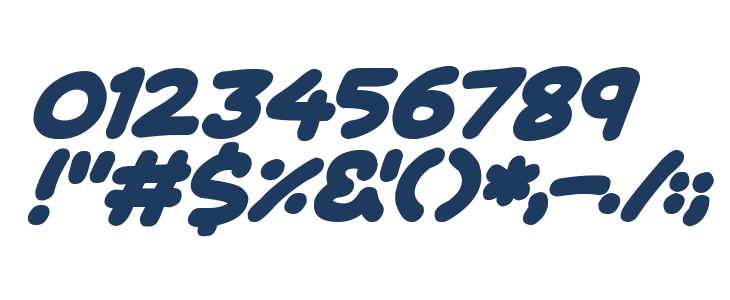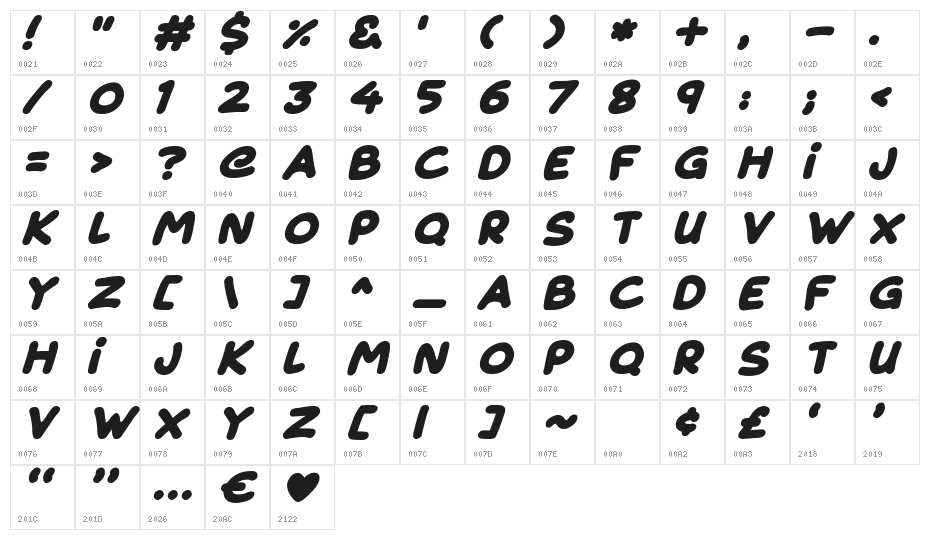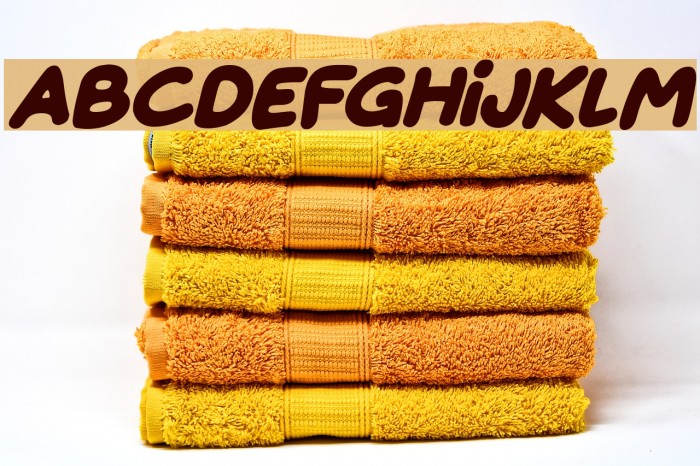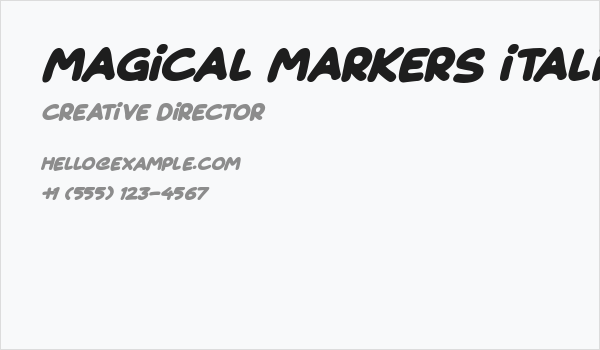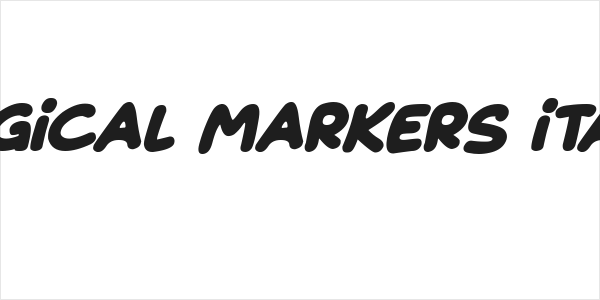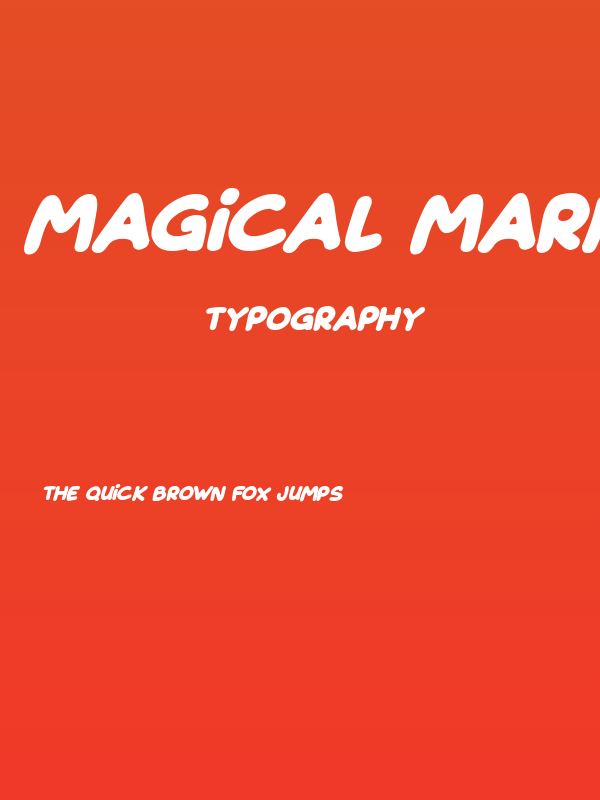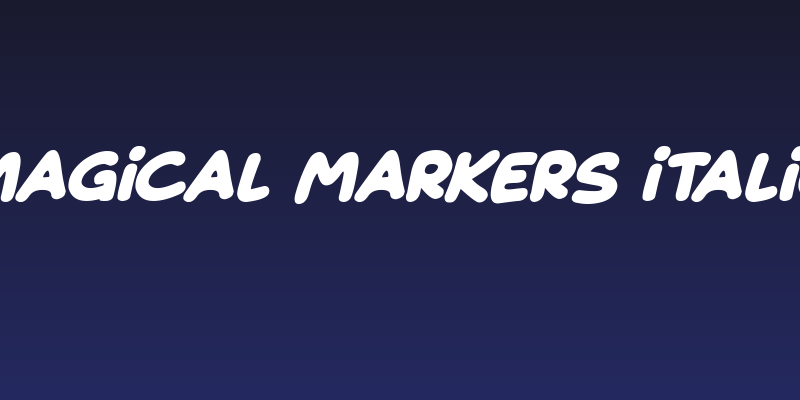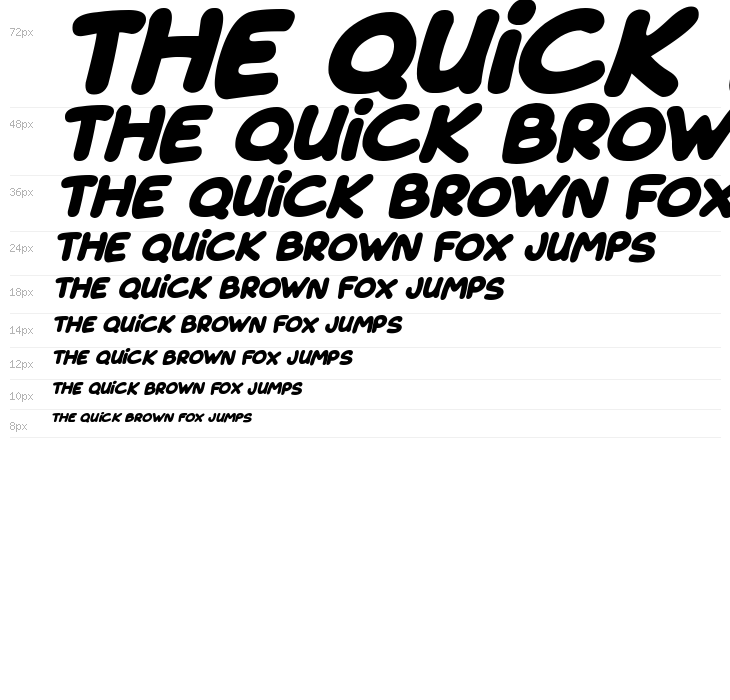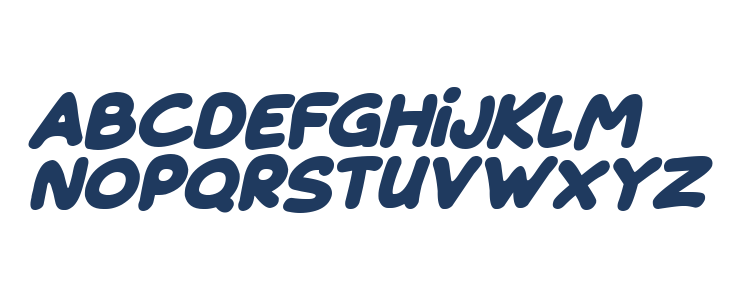
Magical Markers Italic Font
Magical Markers Italic Description
This playful and bold font features a handwritten style with a smooth, flowing appearance. The letters are rounded and slightly slanted, giving it an informal and friendly look. The strokes are thick and consistent, creating a strong presence on the page. The font includes both uppercase and lowercase letters, numbers, and a variety of special characters, making it versatile for different uses. Its bold and dynamic style makes it suitable for eye-catching designs.
| Use Case | Logos, Posters, Headlines |
| Proposed Projects | Ideal for children's book covers, playful branding, greeting cards, and casual posters. |